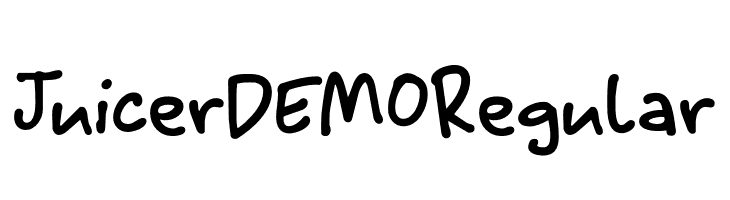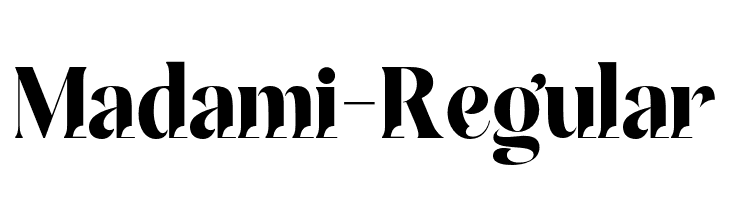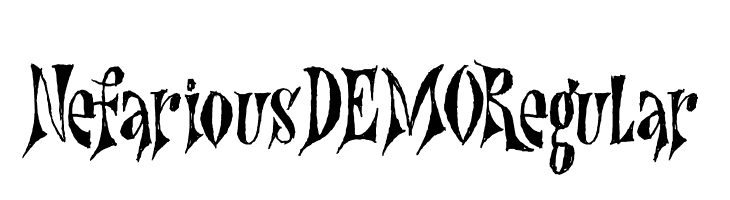
A modern, geometric sans-serif font with uniform stroke widths and clear characters.
A playful handwritten font with a casual and friendly style.
A bold, italicized font with a modern and dynamic style.
A bold, modern font with vintage elements and strong character presence.
A bold, modern serif font with sharp, angular serifs and a strong geometric style.
A bold, high-contrast serif font with a strong, authoritative presence.
A dynamic, elegant font with moderate contrast and a slight slant.
A bold, modern font with clean lines and medium contrast.
A modern, geometric sans-serif font with a clean and professional look.
A geometric, futuristic font with sharp angles and a modern aesthetic.